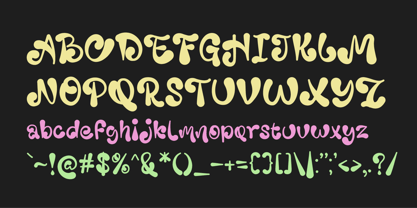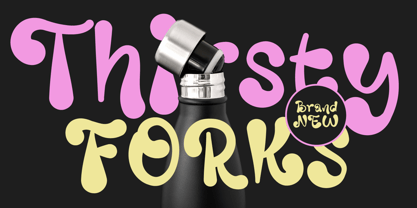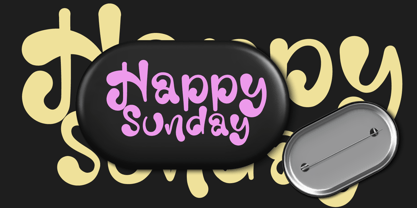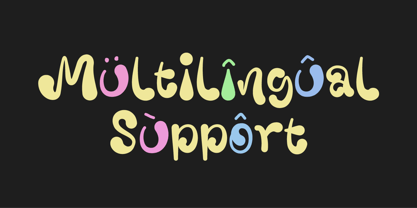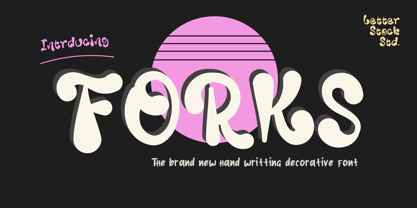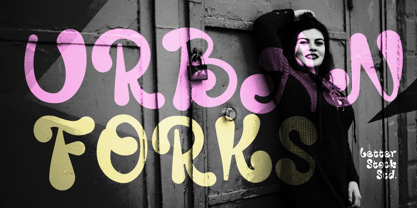
Forks
by LetterStock
The Forks Font Family was designed by Studio LetterStock and published by LetterStock. Forks contains 1 styles. More about this family
FORKS is a decorative handwritten font that blends playful character with a bold urban attitude. Designed with expressive strokes and a natural hand-drawn feel, this font brings energy and personality to any design. With its dynamic and slightly irregular shapes, FORKS creates a strong visual impact that works perfectly for eye-catching titles and creative compositions. The handwritten style gives it a spontaneous and authentic look, while the playful urban vibe makes it suitable for modern and pop-inspired designs. FORKS is a great choice for designers who want typography that feels lively, expressive, and full of character. Whether used for main titles, logos, or posters, this font helps your design stand out with a fun and contemporary style. Perfect for: Main titles and headlines Logo design Posters and promotional graphics Urban and pop style visuals Social media graphics Creative branding projects FORKS brings together playful energy and urban creativity, making it a versatile decorative handwritten font for bold and expressive design work.